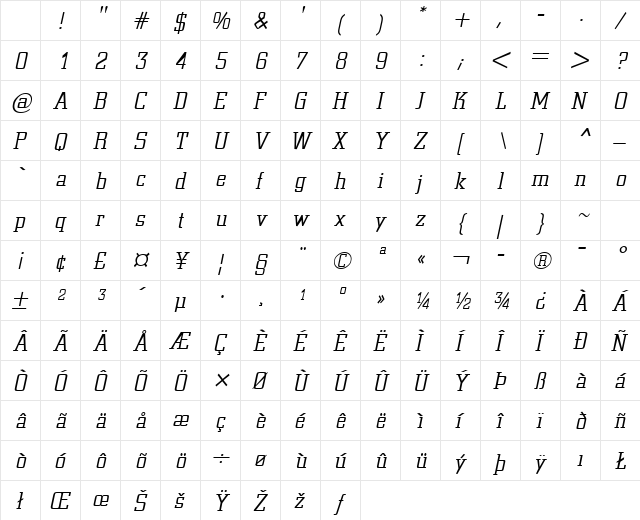
Center City is a composed and adaptable typeface that performs quietly and consistently across a wide range of design contexts. The slanted form adds forward momentum and visual energy.
Pro Tip: Use Center City for emphasis, pull quotes, and subheadings where its slanted energy can add rhythm to the layout.